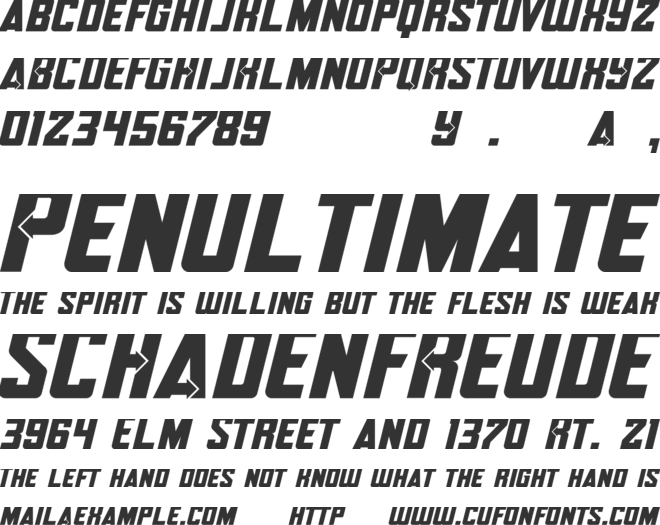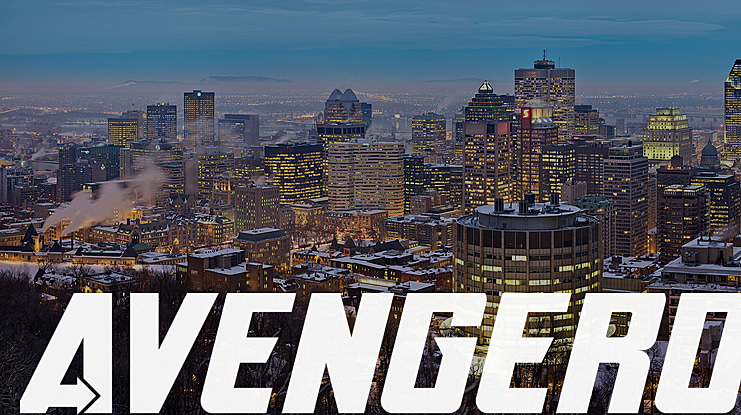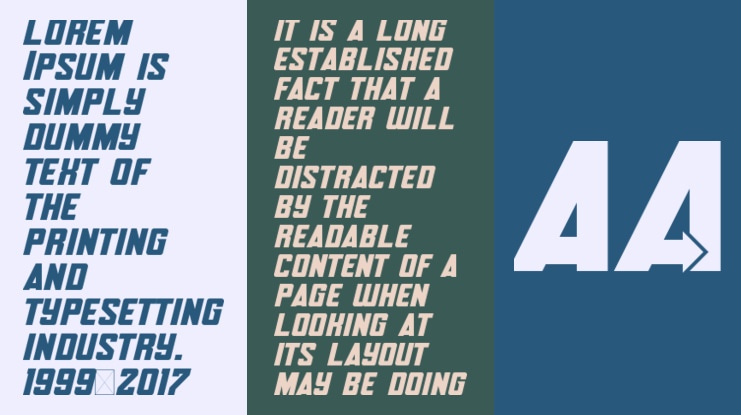
Avengero Font
042718. Opening Day of The Avengers Infinity War. It’s been a while since I’ve released a Superhero movie font, but this one brings to life my entire childhood exposure to the Marvel Universe. Over ten years now, each movie is getting deeper and deeper into the reality of each character. Looking back, I’ve got fontstructions for most of the Avengers: Hulk, Iron Man, Captain America, and now Thor, and Black Panther. All of them in tribute to these heroic symbols translated into glyphic abstract symbols. Thank you comic books, for drawing me into these creative spaces.
Avengero font preview